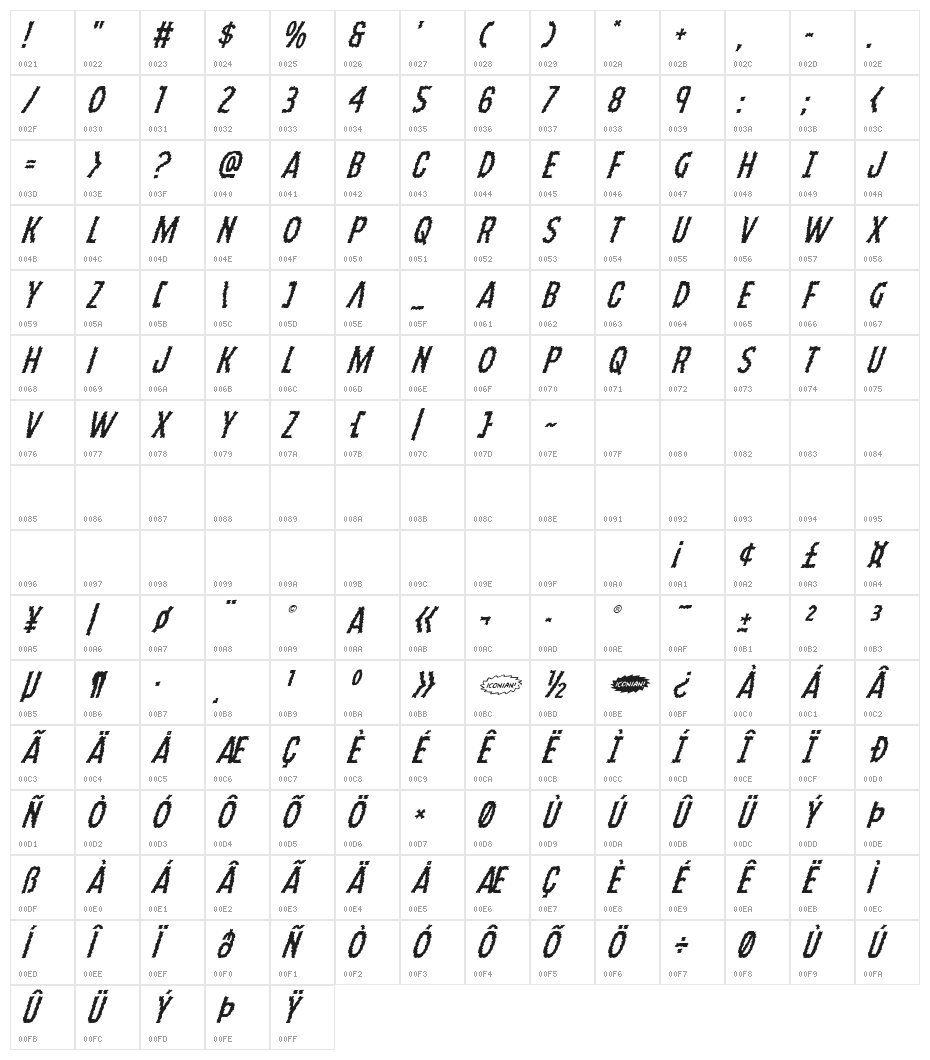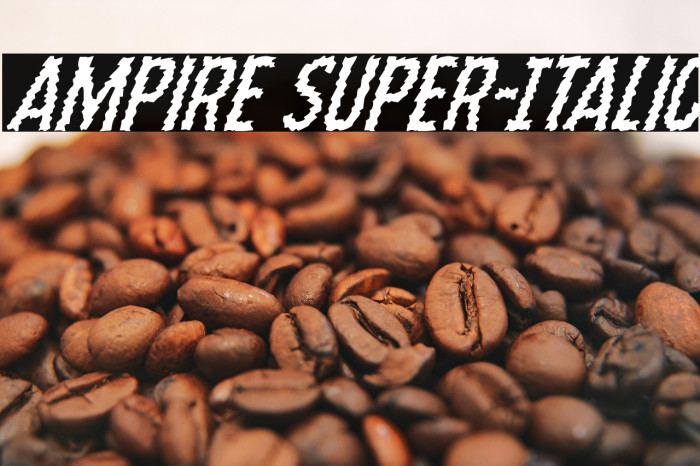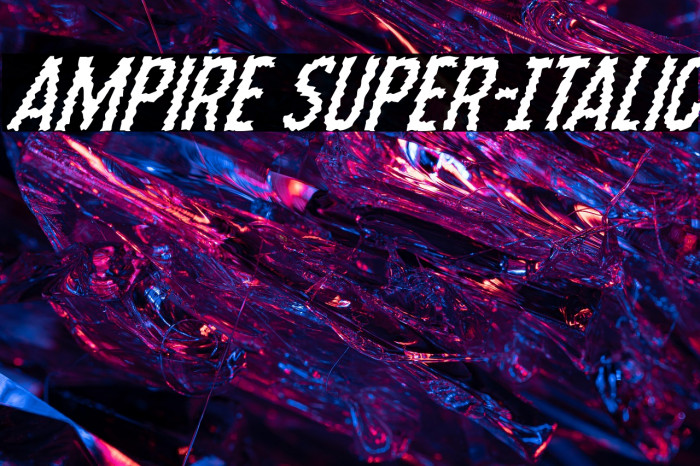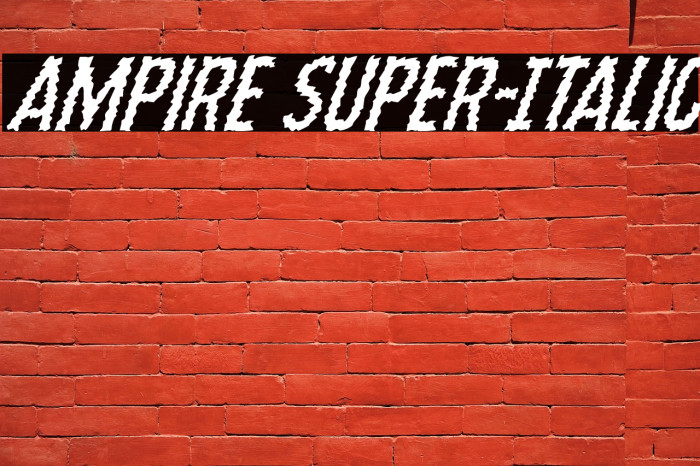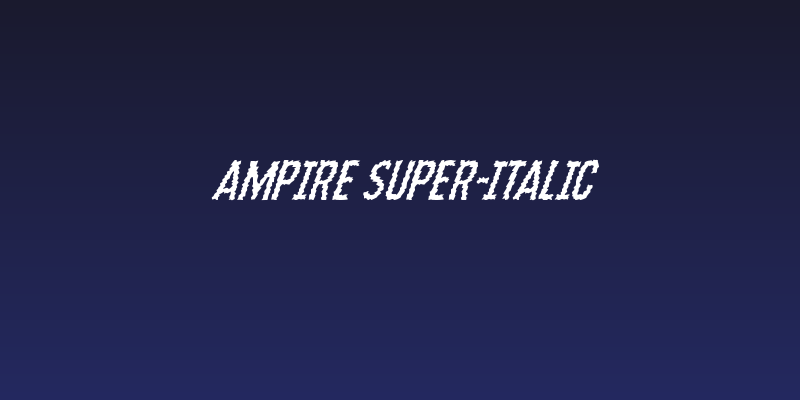
Ampire Super-Italic Font
Ampire Super-Italic Description
This font features a bold and dynamic style with a strong italic slant, giving it a sense of motion and energy. The characters are designed with a jagged, edgy appearance, reminiscent of a lightning bolt or electric current. This distinctive style makes it stand out, capturing attention with its unique and aggressive look. The uppercase and lowercase letters maintain a consistent design, while the numerals and special characters complement the overall aesthetic. The font's boldness and sharp angles make it ideal for projects that require a striking and impactful visual presence.
| Overall Style | Modern, Energetic |
| Proposed Projects | Ideal for sports branding, music album covers, dynamic posters, and edgy graphic designs. |